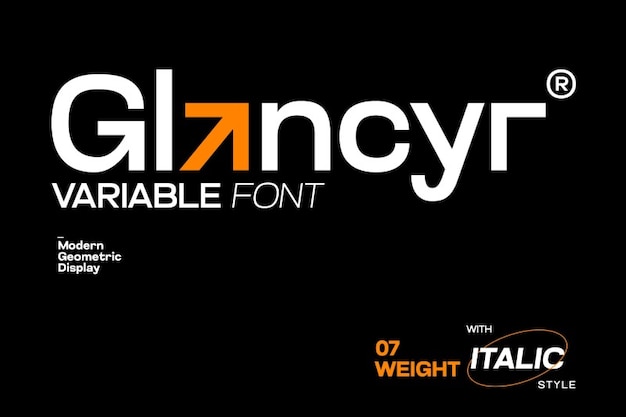
Glancyr Font
Drizy Studio
Glancyr epitomizes modernity with its geometric simplicity. Clean lines and basic shapes define its essence, offering a minimalist approach to design. Perfect for contemporary projects, Glancyr's sleek aesthetic adds a touch of sophistication to any composition, making it an ideal choice for those seeking simplicity with a modern twist.